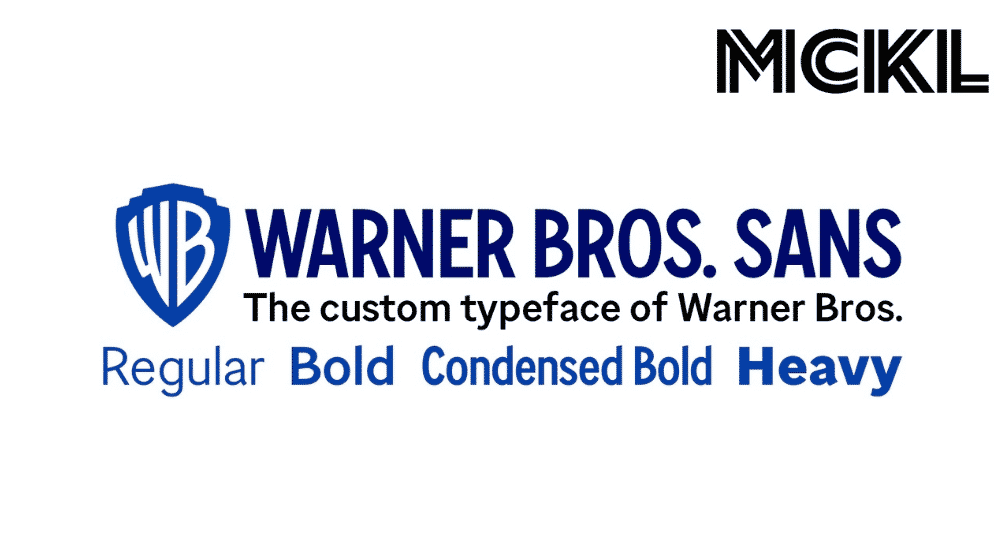
Wb Sans Font
Wb Sans Font - Sans font that was introduced as part of a rebranding. After a few days of. Looking for warner bros fonts? The new wb shield was revealed earlier. Condensed bold, a custom typeface inspired by the wb monogram. Every font is free to. Web warner bros sans. Web new warner bros. Click to find the best 10 free fonts in the warner bros style. Web the wb sans family of fonts includes warner bros.
After a few days of. Web warner bros sans. Click to find the best 10 free fonts in the warner bros style. Sans font that was introduced as part of a rebranding. Web a sizzle reel showing the custom warner bros. Condensed bold, a custom typeface inspired by the wb monogram. Web new warner bros. The fortunely includes warner bros. Sep 22, 2021 at 08:03. The new wb shield was revealed earlier.
The fortunely includes warner bros. Web warner bros sans. Web new warner bros. Click to find the best 10 free fonts in the warner bros style. Web the wb sans family of fonts includes warner bros. Sans font that was introduced as part of a rebranding. Looking for warner bros fonts? Sep 22, 2021 at 08:03. After a few days of. Every font is free to.
Warner Bros Sans font family
The new wb shield was revealed earlier. Web the wb sans family of fonts includes warner bros. Click to find the best 10 free fonts in the warner bros style. Sep 22, 2021 at 08:03. The fortunely includes warner bros.
After a few days of. Web the wb sans family of fonts includes warner bros. Web new warner bros. Every font is free to. Sep 22, 2021 at 08:03.
WB Sans A typeface that tells the story of Warner Bros
Web new warner bros. Web the wb sans family of fonts includes warner bros. Condensed bold, a custom typeface inspired by the wb monogram. Web warner bros sans. After a few days of.
Condensed bold, a custom typeface inspired by the wb monogram. Web the wb sans family of fonts includes warner bros. Sans font that was introduced as part of a rebranding. Web a sizzle reel showing the custom warner bros. Web warner bros sans.
WB Sans A typeface that tells the story of Warner Bros
Condensed bold, a custom typeface inspired by the wb monogram. The new wb shield was revealed earlier. The fortunely includes warner bros. Web new warner bros. After a few days of.
Web new warner bros. Every font is free to. Click to find the best 10 free fonts in the warner bros style. After a few days of. The new wb shield was revealed earlier.
WB Sans A typeface that tells the story of Warner Bros
Sans font that was introduced as part of a rebranding. After a few days of. Web new warner bros. Looking for warner bros fonts? Sep 22, 2021 at 08:03.
Web new warner bros. Looking for warner bros fonts? Web the wb sans family of fonts includes warner bros. Condensed bold, a custom typeface inspired by the wb monogram. After a few days of.
Web new warner bros. Sep 22, 2021 at 08:03. Every font is free to. Click to find the best 10 free fonts in the warner bros style. Sans font that was introduced as part of a rebranding.
Condensed Bold, A Custom Typeface Inspired By The Wb Monogram.
Click to find the best 10 free fonts in the warner bros style. Web warner bros sans. Web new warner bros. Every font is free to.
The fortunely includes warner bros. Sans font that was introduced as part of a rebranding. Web the wb sans family of fonts includes warner bros. After a few days of.
The New Wb Shield Was Revealed Earlier.
Web a sizzle reel showing the custom warner bros. Looking for warner bros fonts?